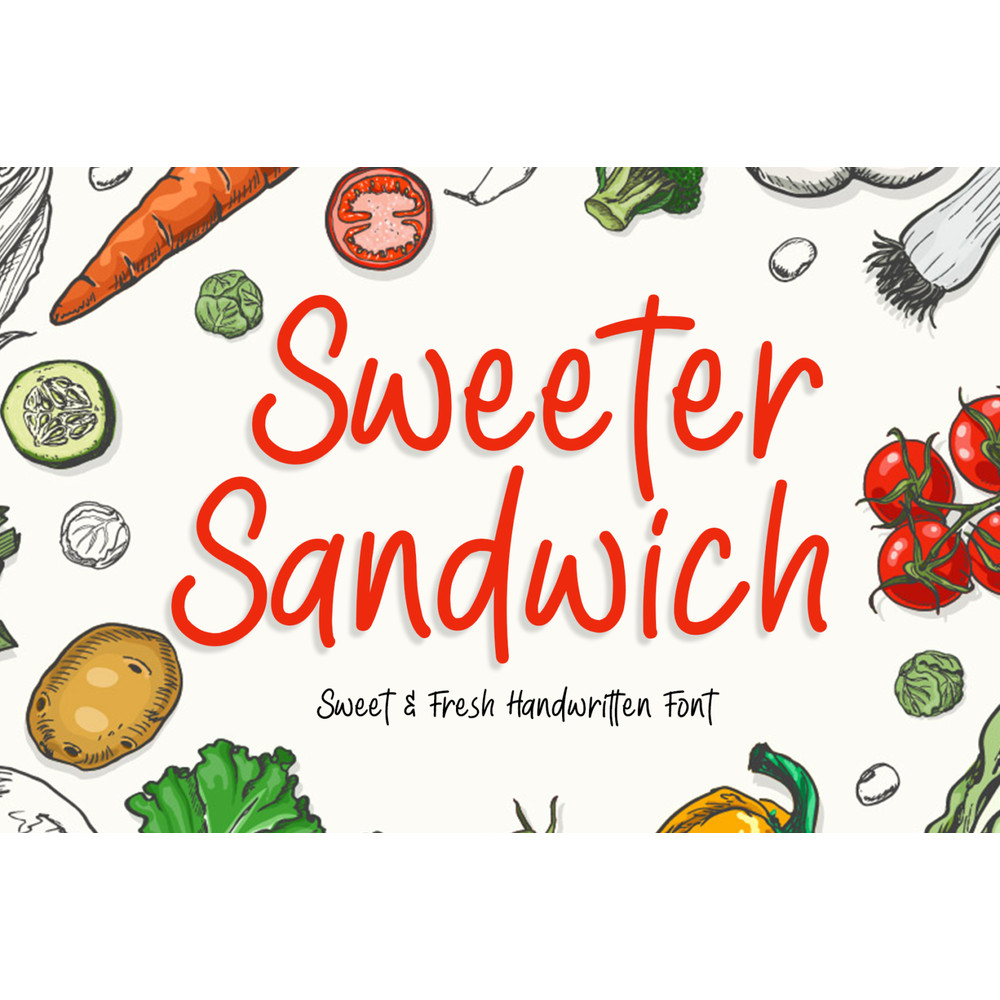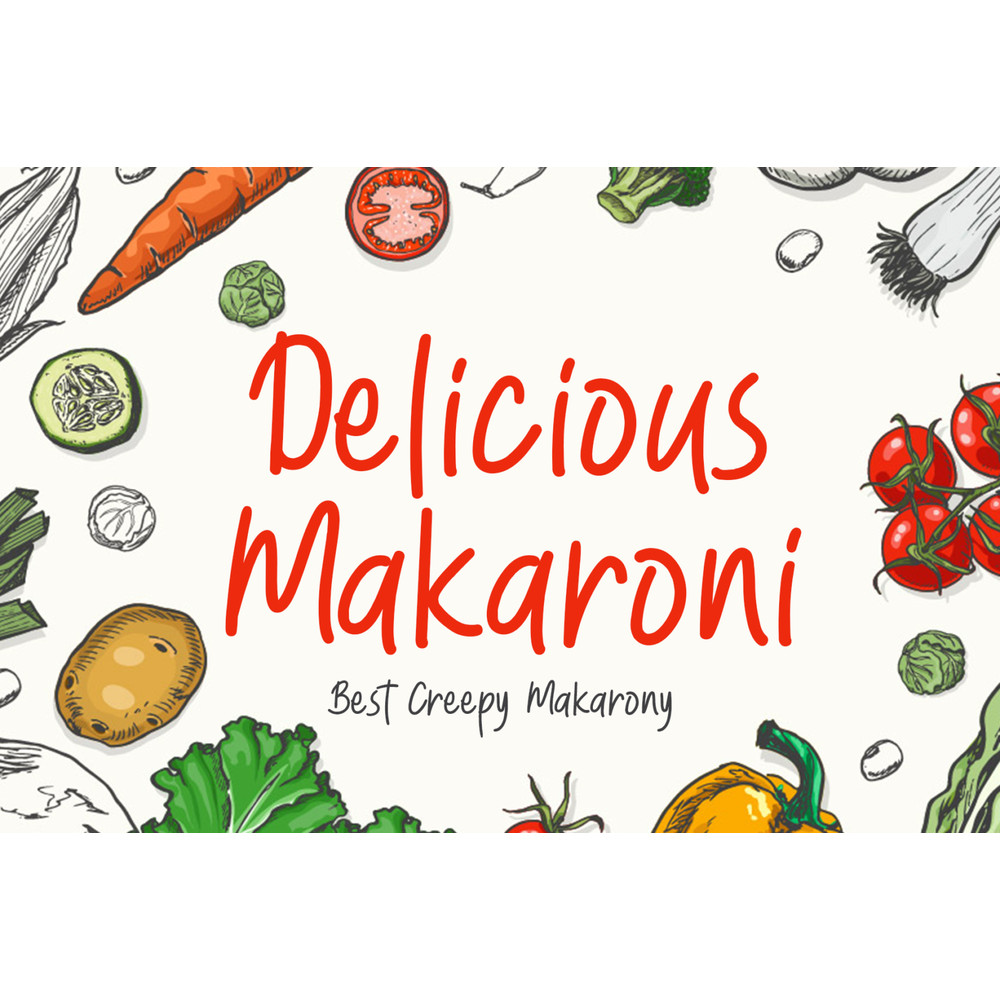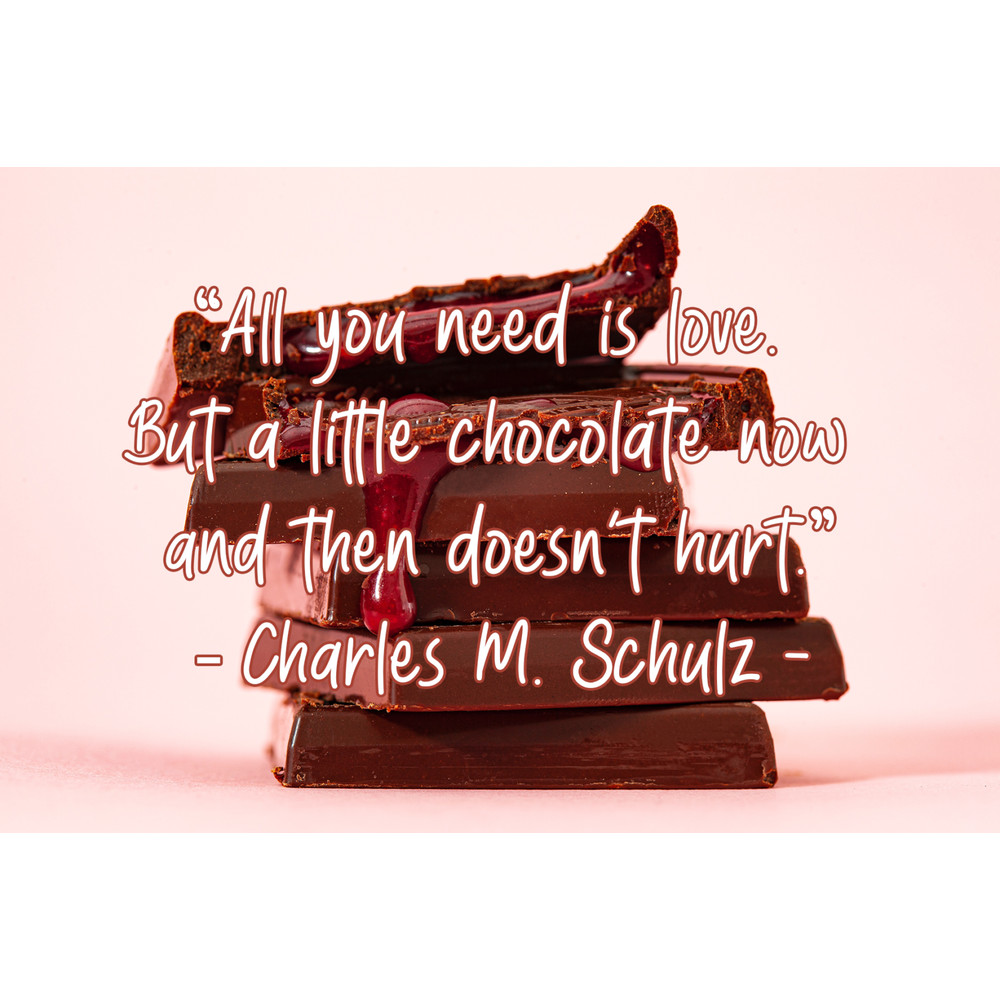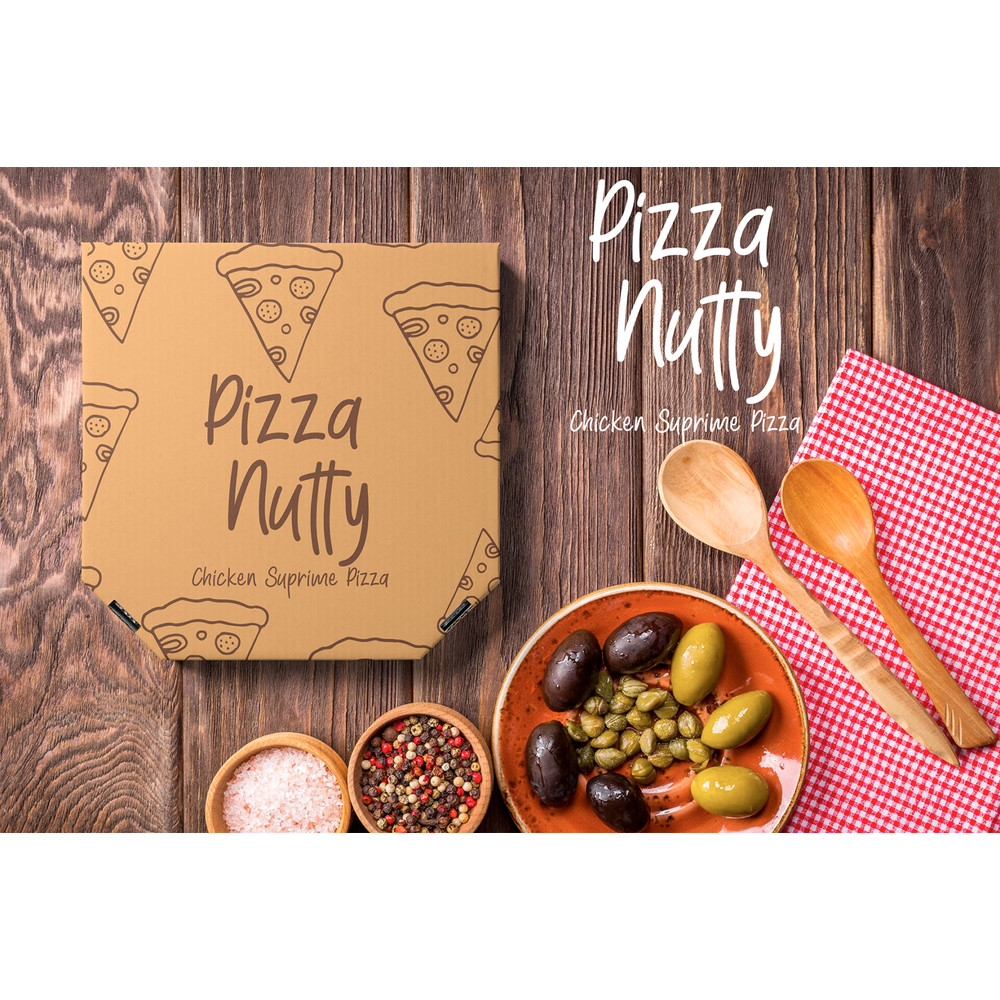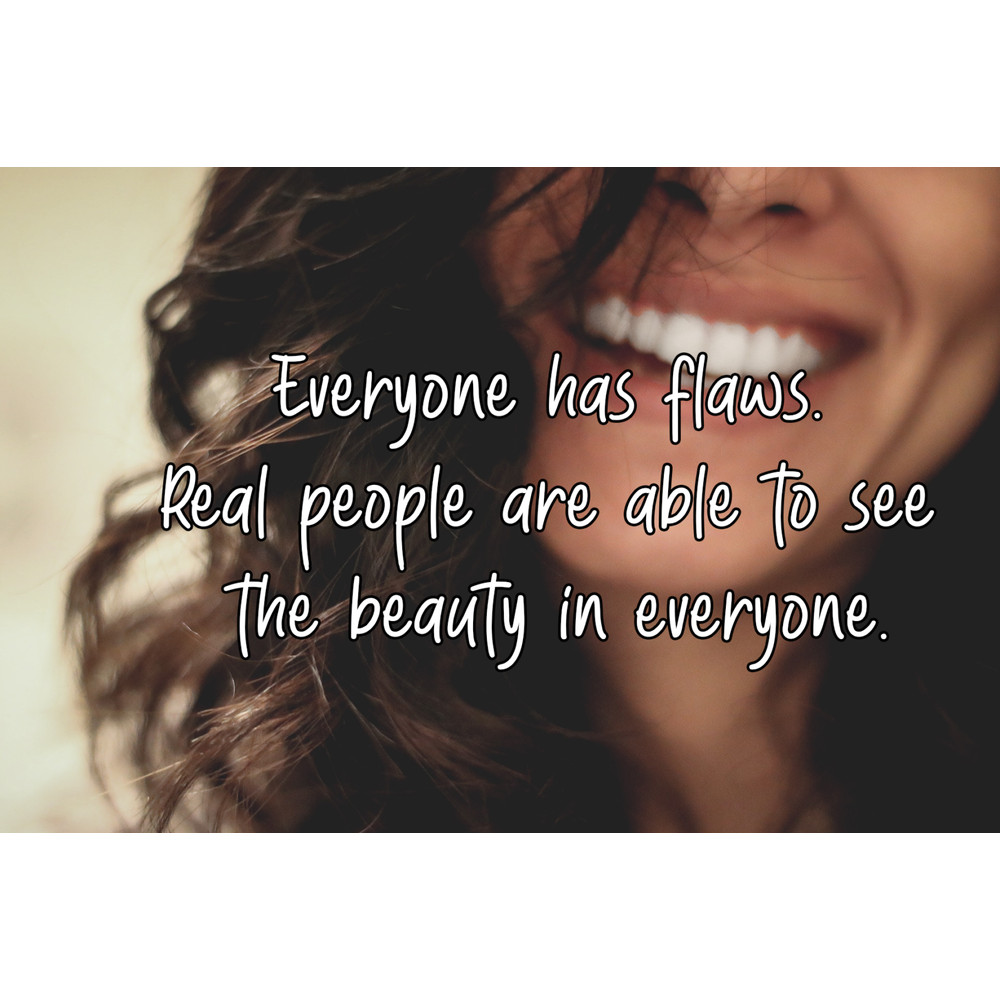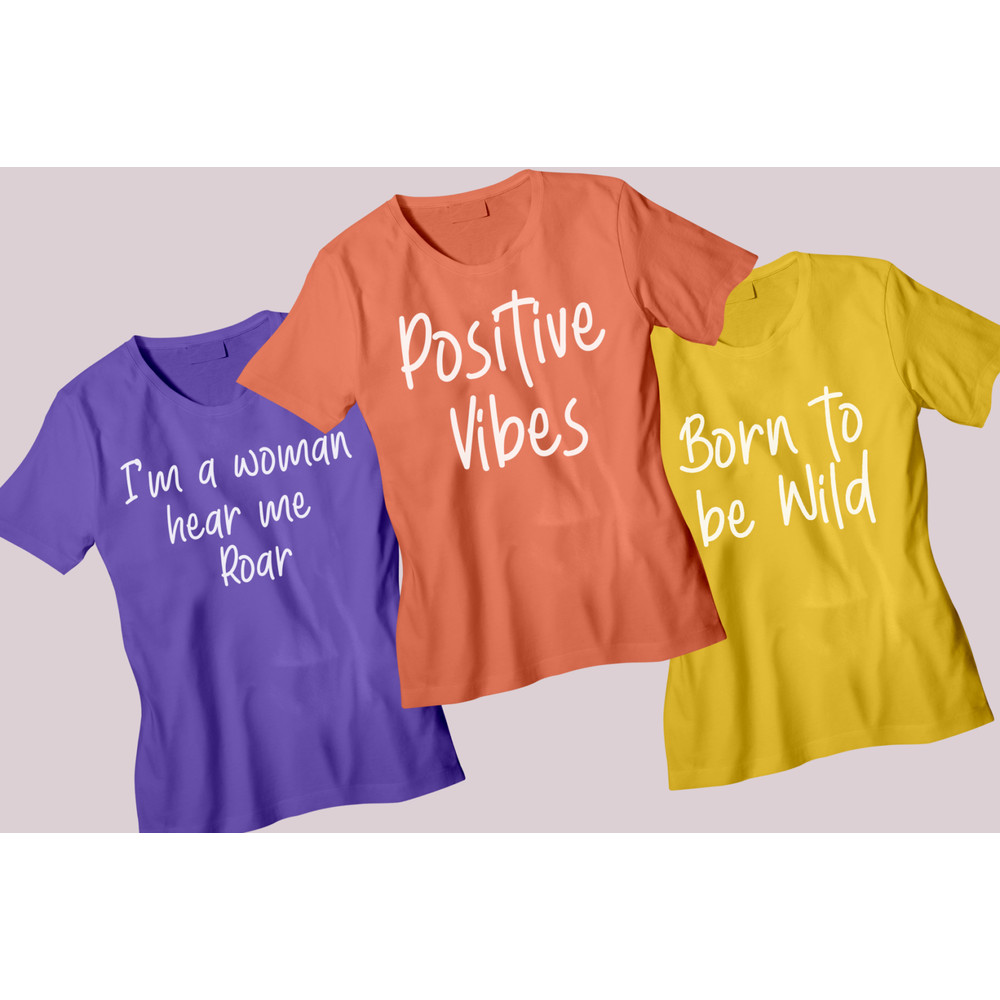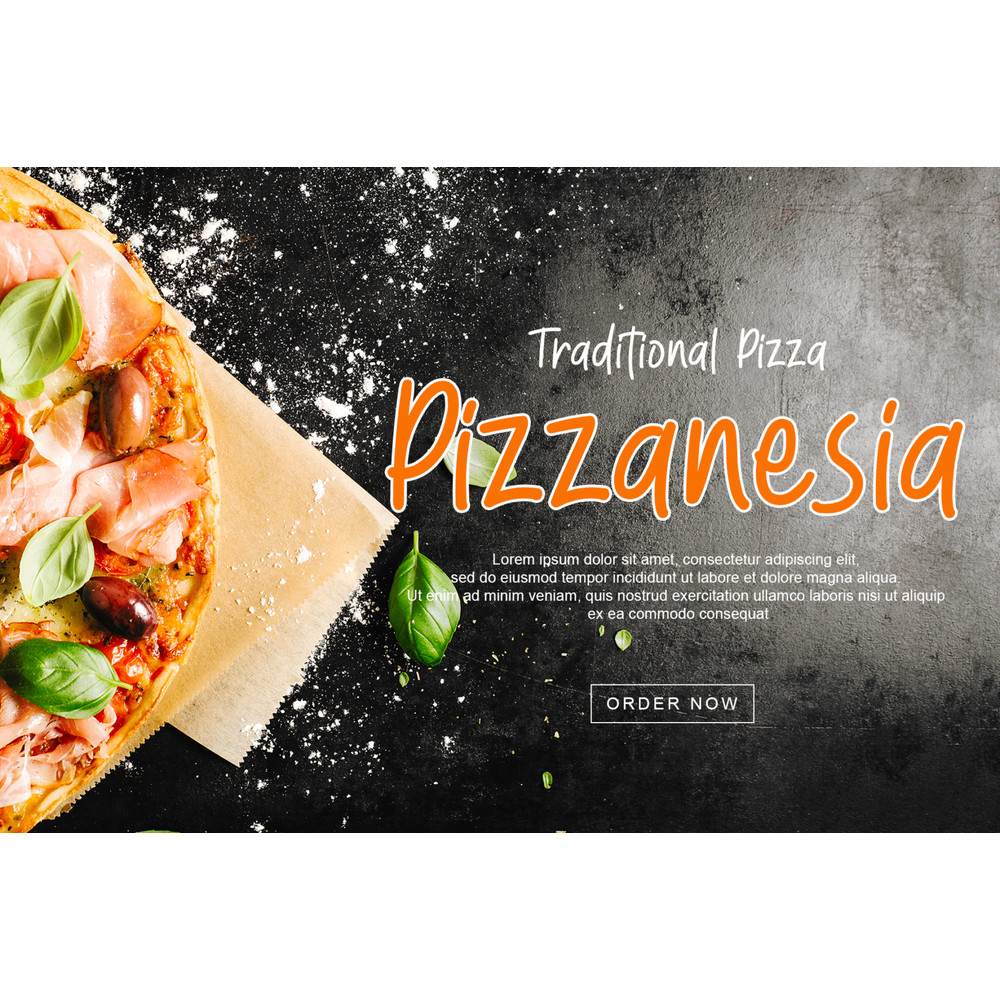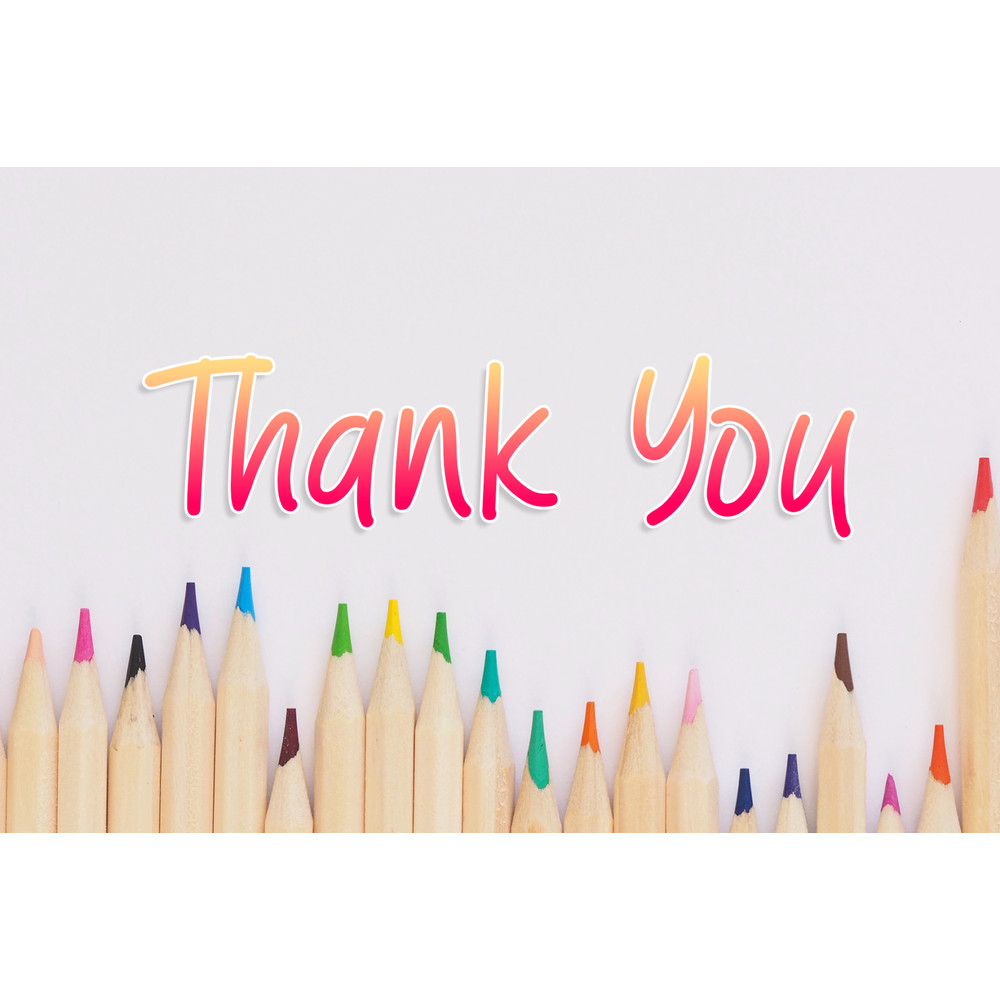
Sweeter Sandwich Handwritten Trending Fonts - Digital Font
Sweeter Sandwich is a handwritten font created to give a natural impression, each character is very clean and beautiful so that it can give an elegant impression on every design, this font is perfect for logos, quotes, social media posts, promotional media, book covers, posters, packaging, product designs, magazines, product displays, business cards and more.
Sweeter Sandwich Handwritten Trending Fonts - Digital Font
Sweeter Sandwich is a handwritten font created to give a natural impression, each character is very clean and beautiful so that it can give an elegant impression on every design, this font is perfect for logos, quotes, social media posts, promotional media, book covers, posters, packaging, product designs, magazines, product displays, business cards and more.